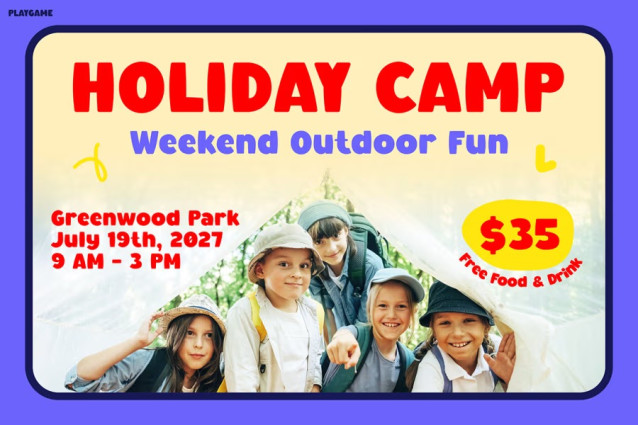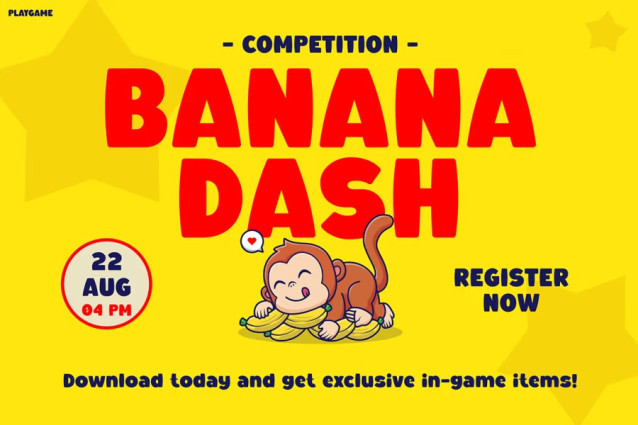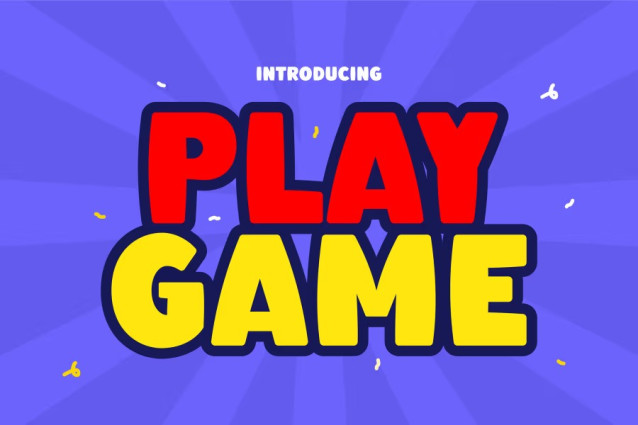
Playgame Font is more than just a typeface—it’s an explosion of color, joy, and imagination! With its playful curves and bold shapes, this font instantly grabs attention and adds a cheerful spark to any design. Moreover, its smooth edges and balanced proportions make every letter feel alive, as if they’re ready to jump off the screen. Designed with the essence of childhood wonder, it blends creativity and clarity, ensuring your message remains both exciting and easy to read.
In addition, the Kids Font PLAYGAME style draws inspiration from vibrant gaming interfaces, fun cartoons, and adventurous playgrounds. As a result, it delivers a sense of motion and enthusiasm that perfectly fits any youthful or entertainment-themed project. Every character feels friendly, inviting, and packed with personality—just what you need to make your visuals stand out and smile back at your audience.
Not only is Kids Font PLAYGAME visually striking, but it’s also incredibly versatile. It’s ideal for designers, educators, and creators who want to spread happiness through their work. For example, you can use it in children’s game interfaces, toy packaging, school campaigns, event posters, birthday invitations, and YouTube thumbnails.
Furthermore, teachers and publishers will appreciate how it brings warmth and excitement to learning materials. Likewise, app developers and marketers can use it to build engaging, family-friendly experiences that keep audiences smiling. Whether you’re crafting kids’ zones, outdoor play banners, or educational brand identities, this font ensures your words feel dynamic, joyful, and alive.
Because of its bold readability and expressive tone, it adapts beautifully across both print and digital formats. So, whether you’re designing for fun, learning, or storytelling—PLAYGAME helps your creativity shine brighter than ever.
Ultimately, Kids Font PLAYGAME is your key to unlocking imagination. It turns ordinary designs into memorable adventures filled with laughter and excitement. So, why settle for dull typography when you can play, explore, and create with style? Add a burst of positivity and character to your projects, and let every word tell a story worth smiling about.